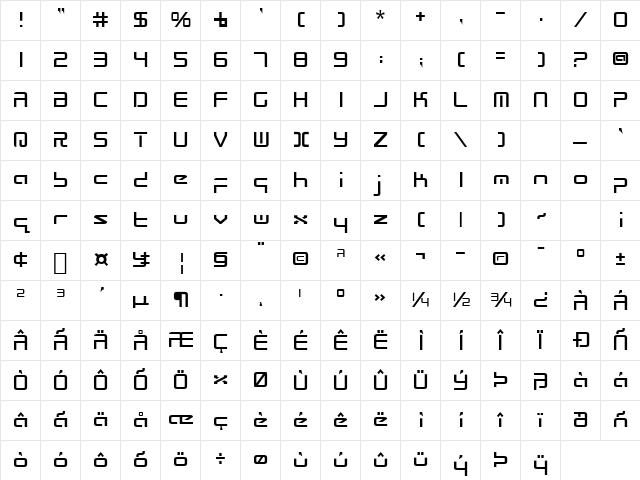
Radio Space Regular
Design Context for Radio Space
Radio Space is a composed and adaptable typeface that performs quietly and consistently across a wide range of design contexts.